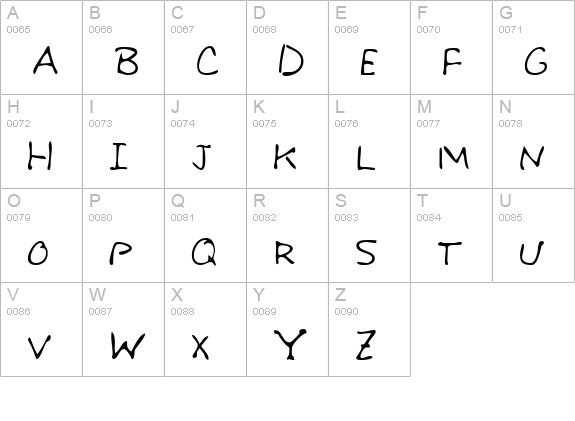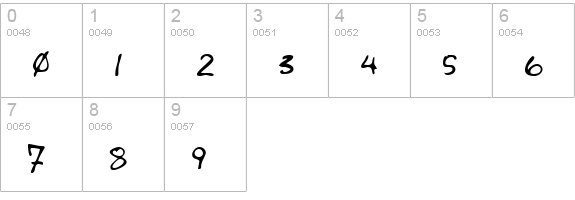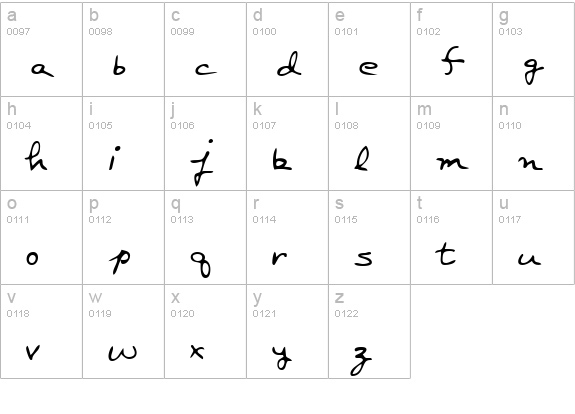
AudreysHand Regular Font Details
AudreysHand Regular is the standard, neutral variant in the AudreysHand typeface family \xE2\x80\x94 well suited to general body text, paragraphs, and standard typographic work.
AudreysHand Regular font is a charming and elegant handwritten typeface that exudes a sense of creativity and sophistication. Its flowing lines and unique character shapes make it perfect for adding a personal touch to your projects. Whether you're designing invitations, logos, or social media posts, AudreysHand Regular will bring a touch of whimsy and elegance to your work. Best of all, AudreysHand Regular is available for free download at FontsMarket.com. This means you can easily access this beautiful font to enhance your designs without any cost. Don't miss out on this opportunity to elevate your projects with the timeless beauty of AudreysHand Regular font. Download it today and let your creativity shine!